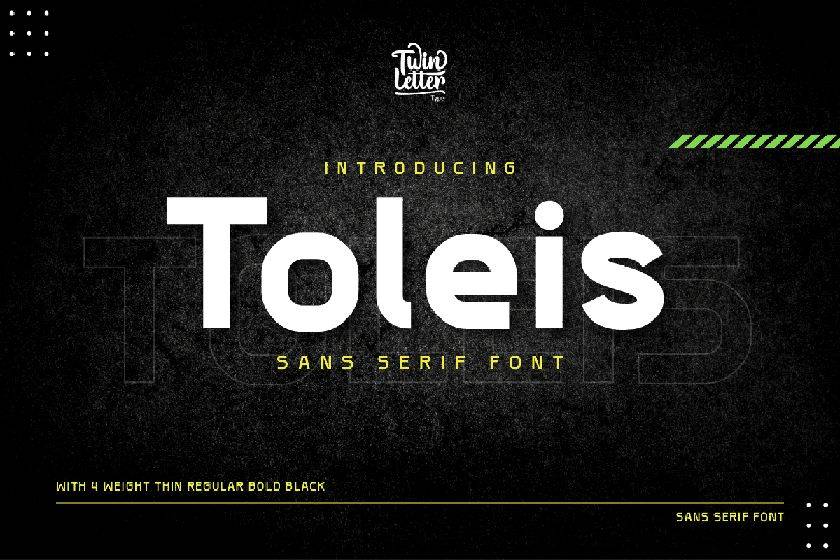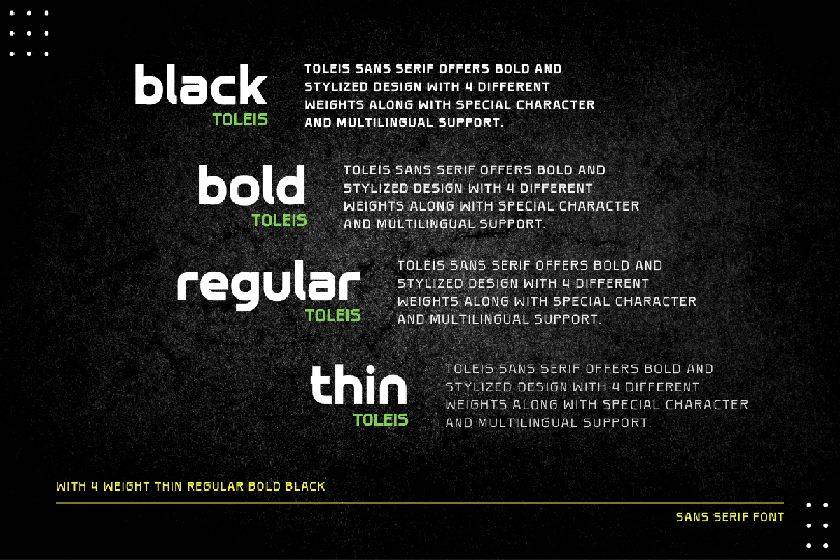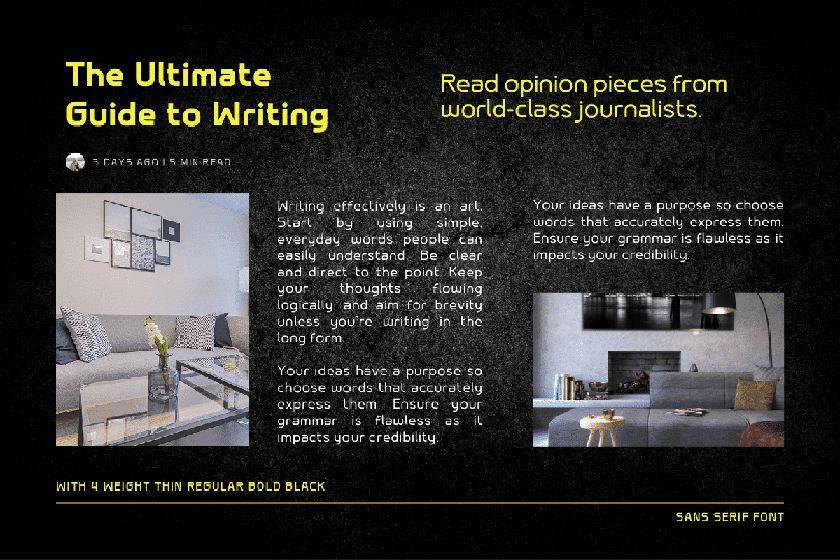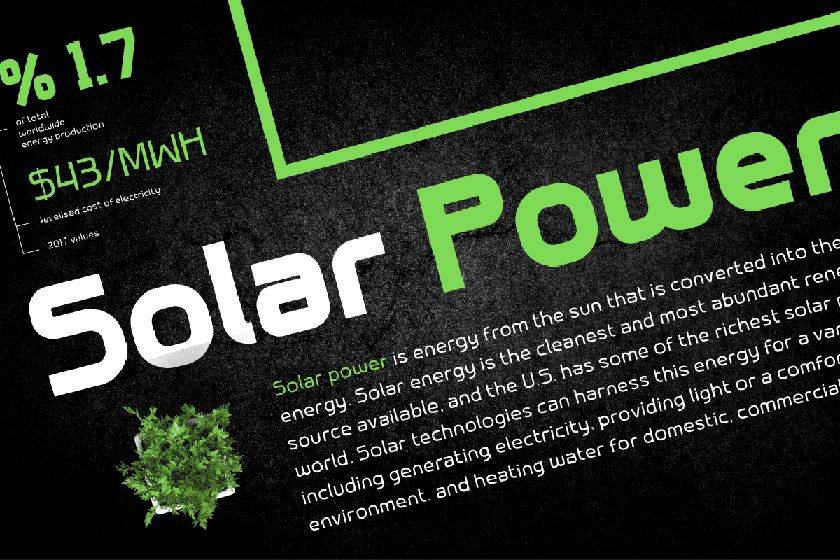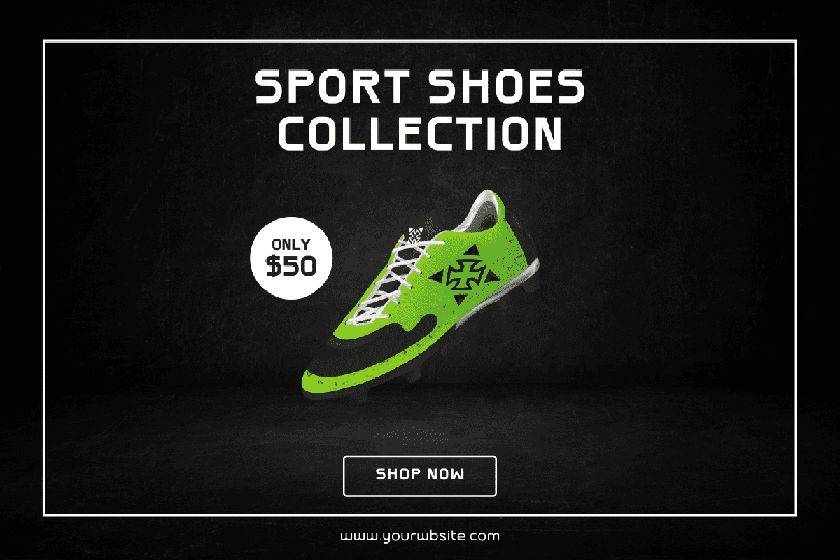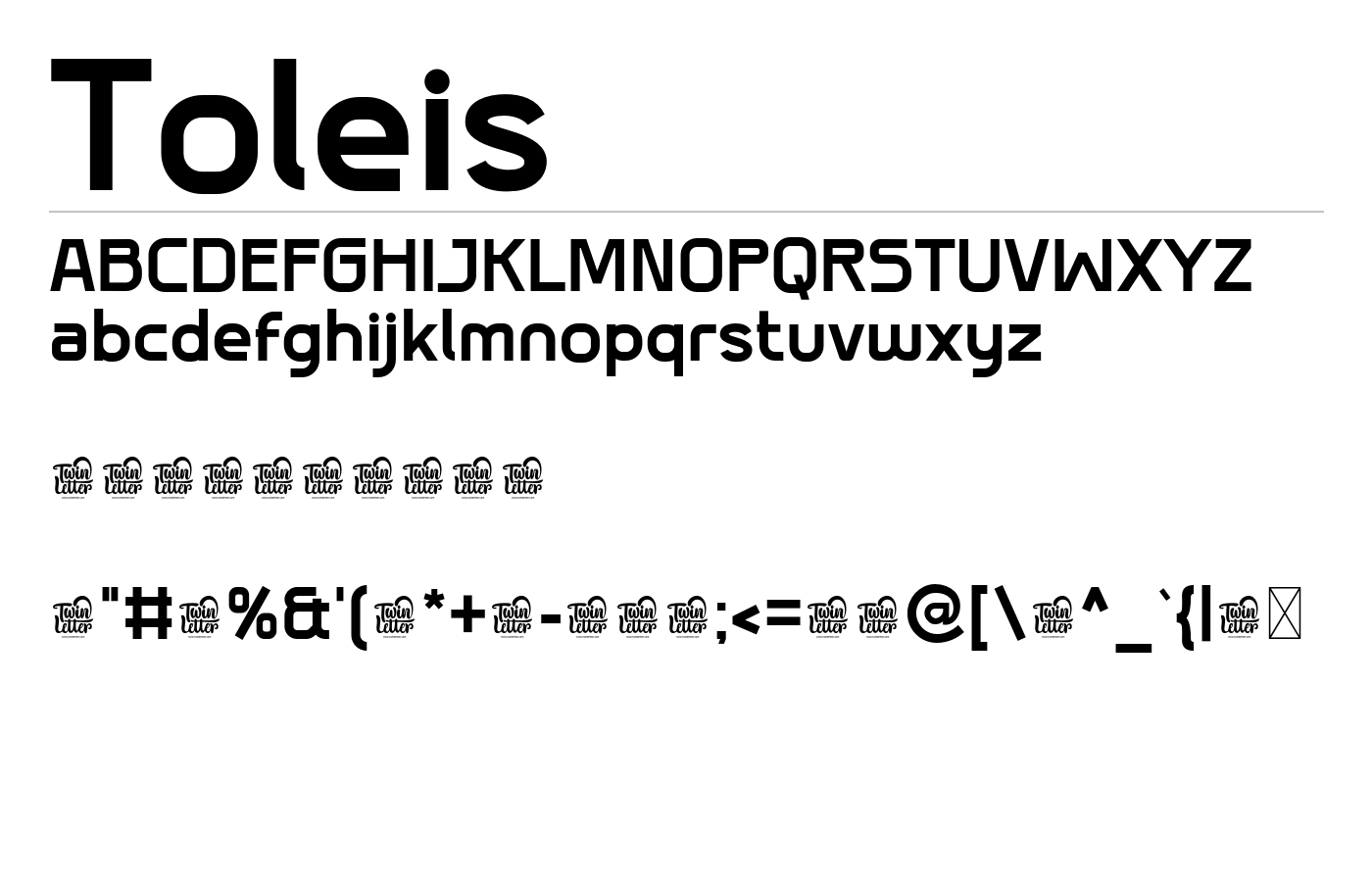
Toleis is a modern, geometric sans serif font with a clean and slightly condensed structure that offers a balanced x-height and sharp, uniform strokes. Its straightforward but distinctive letterforms, including unique angled details and single-story shapes, give it a contemporary and professional feel ideal for technology branding, editorial headlines, and digital interfaces. This font works well where clarity and a sleek, modern appearance are key, making it perfect for both web and print design projects that seek a bold yet approachable style.
Toleis Font
About Toleis Font